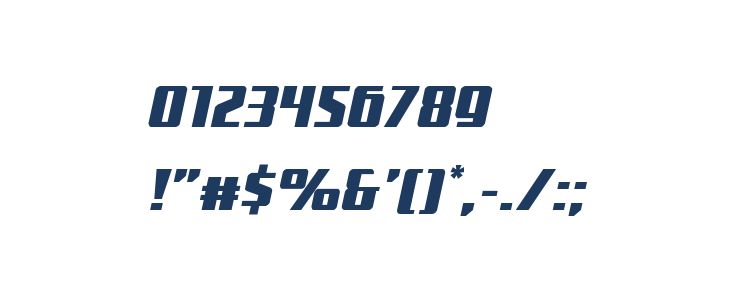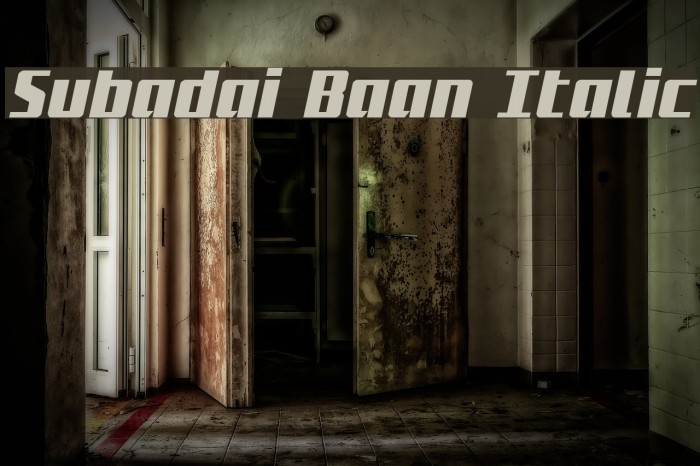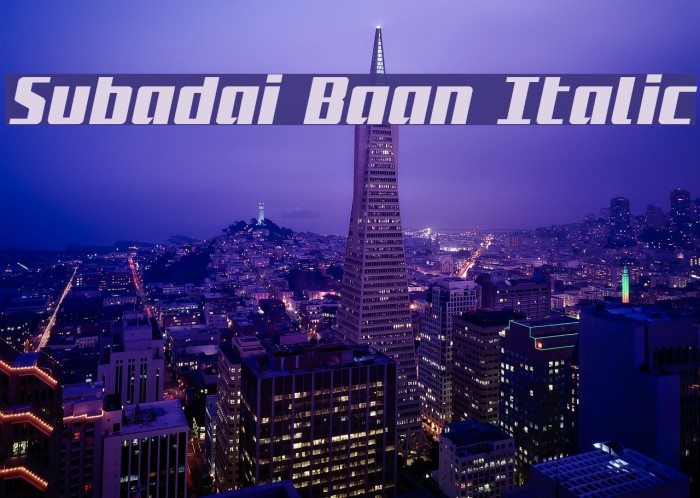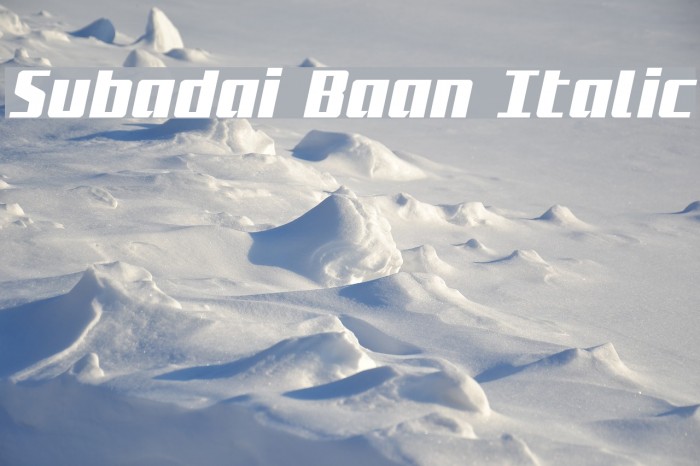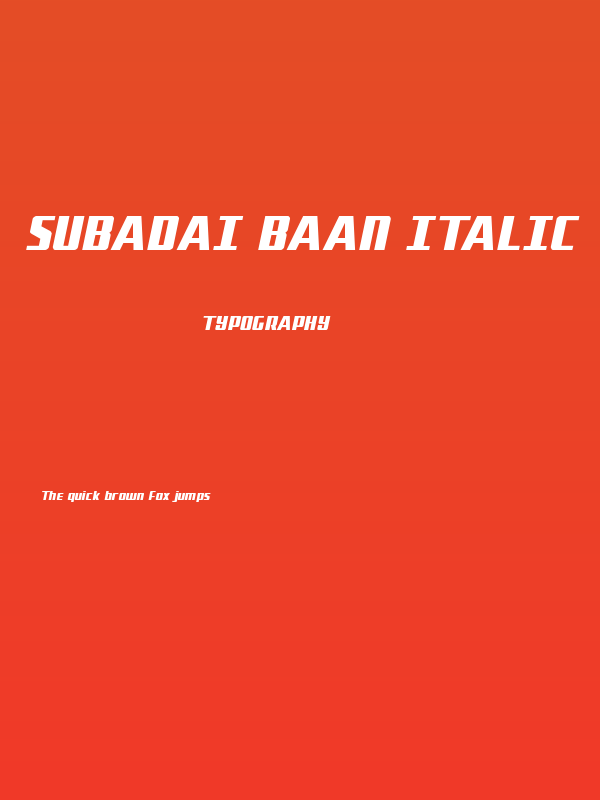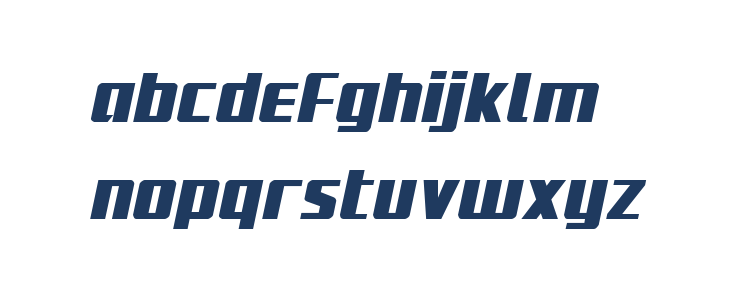
Subadai Baan Italic Font
Subadai Baan Italic Description
This font exhibits a bold and dynamic style with a strong italic slant, giving it a sense of motion and energy. The characters are wide and have a consistent stroke width, contributing to a robust and impactful appearance. The uppercase letters are particularly striking, with sharp angles and a modern aesthetic. The lowercase letters maintain the same boldness, ensuring readability while adding a touch of uniqueness. Numerals are clear and consistent with the overall style, making them suitable for various applications. Special characters are well-integrated, maintaining the font's cohesive look.
Proposed ProjectsIdeal for sports branding, dynamic posters, and modern advertising campaigns.